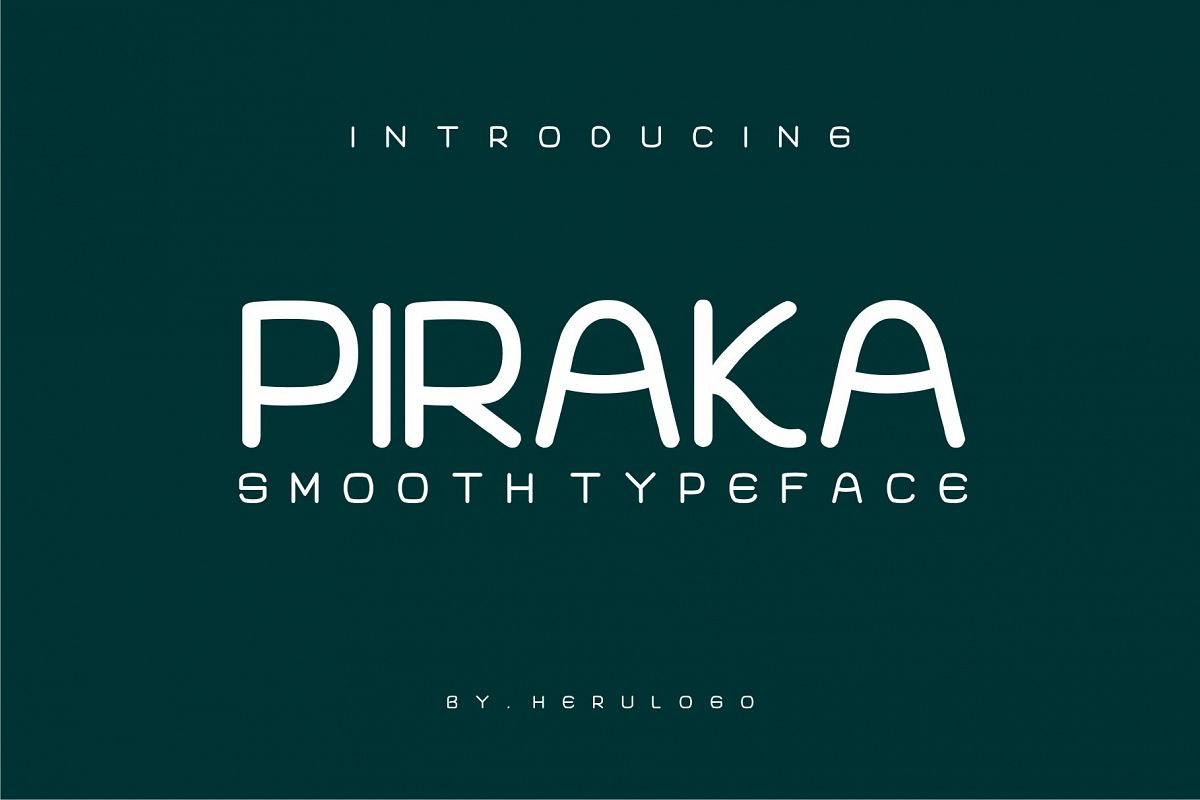
PIRAKA Smooth typeface
Piraka
This cute font has very smooth rounded letters and really stands out because of it’s symmetrical letters. Piraka font is a great font for when you are creating unique design that needs to feel different.